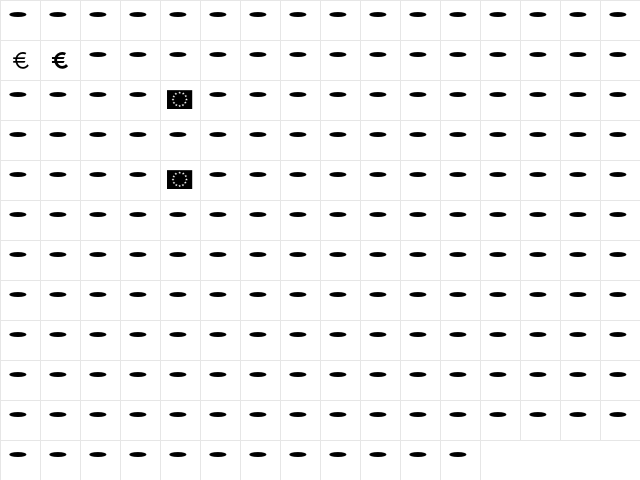
Instanter Euro
Design Context for Instanter Typeface
Instanter takes a measured approach to typography — its balanced proportions and neutral character make it a reliable workhorse for both digital and print work.